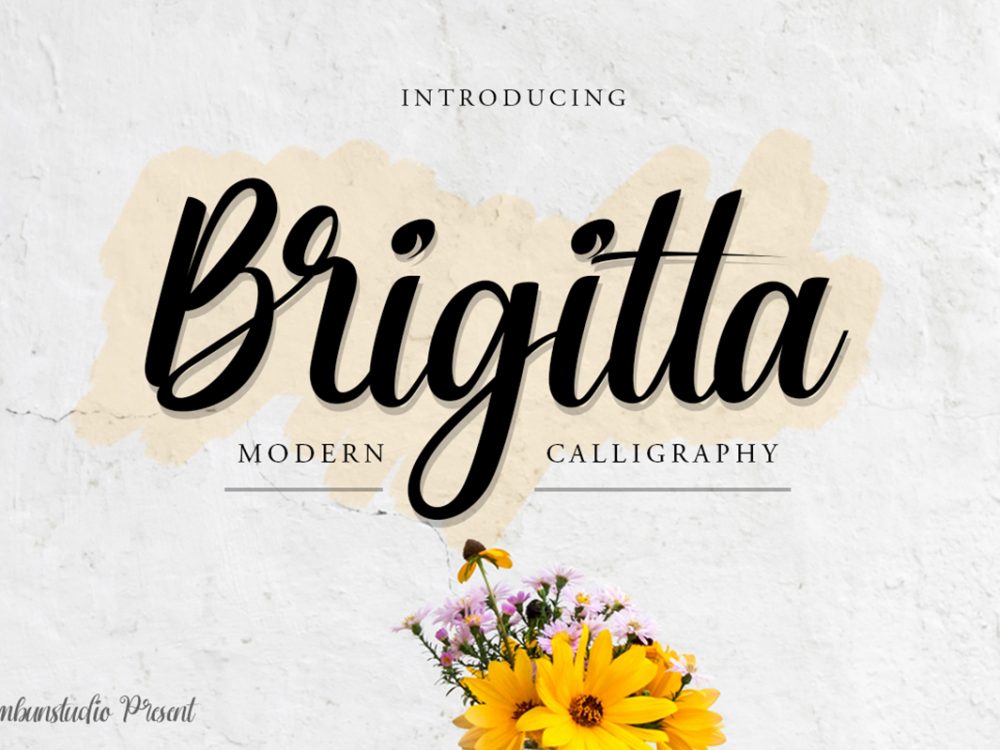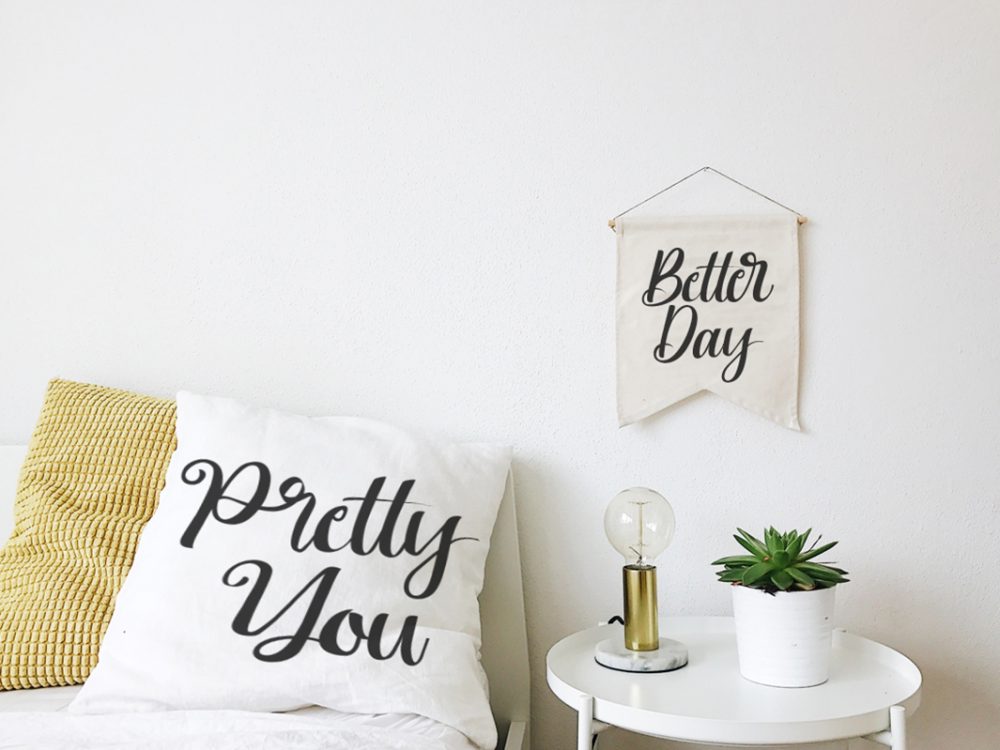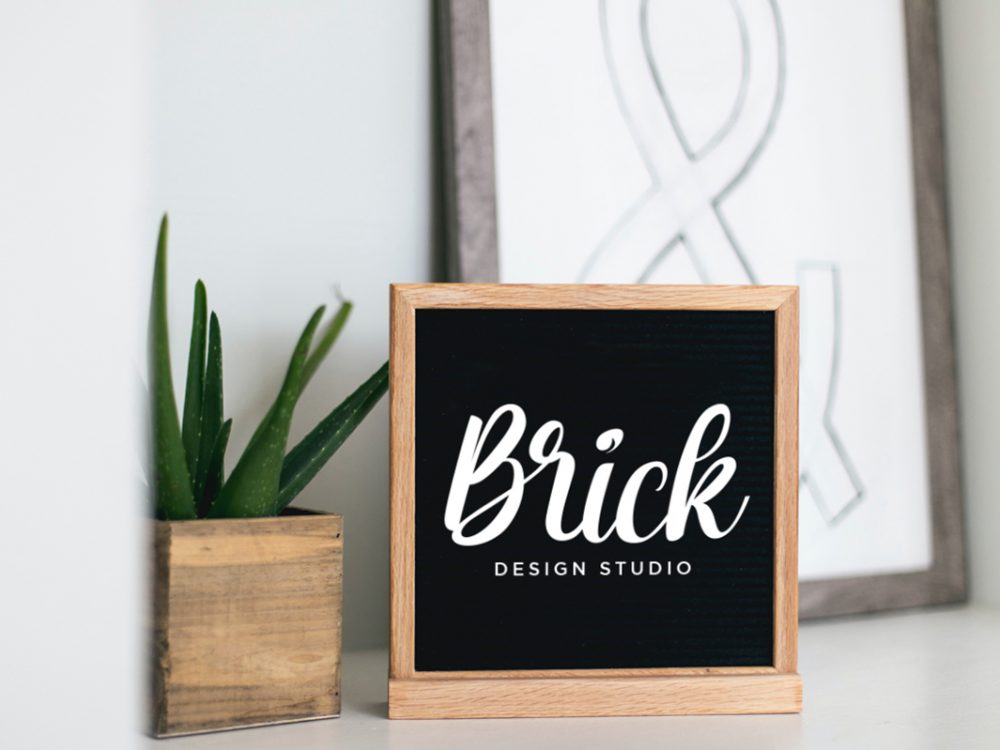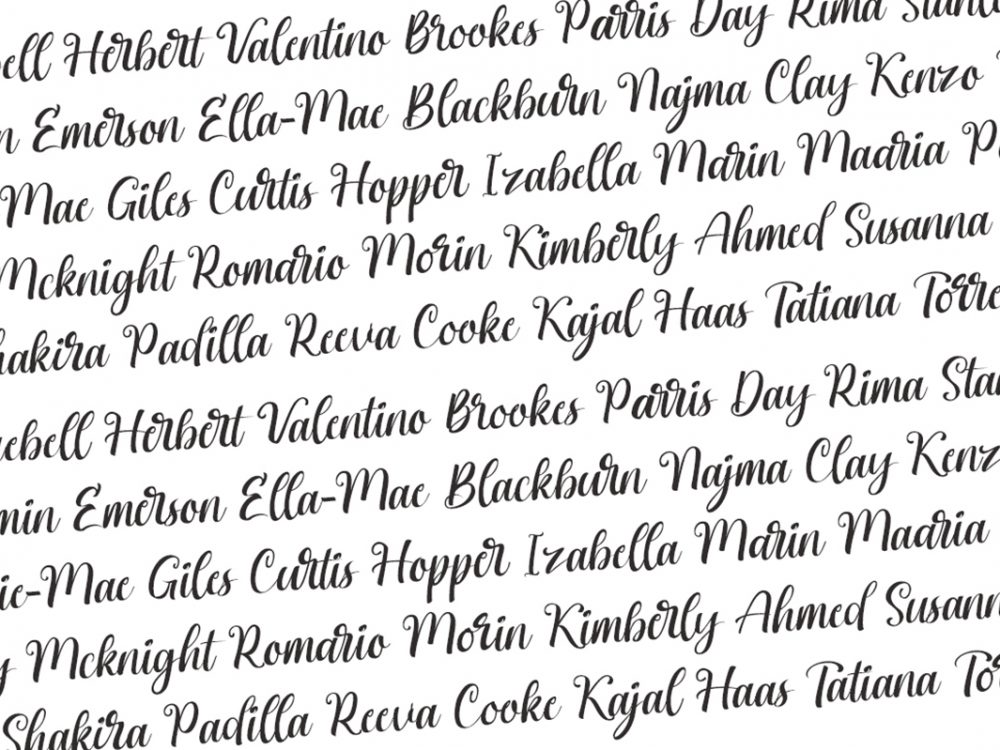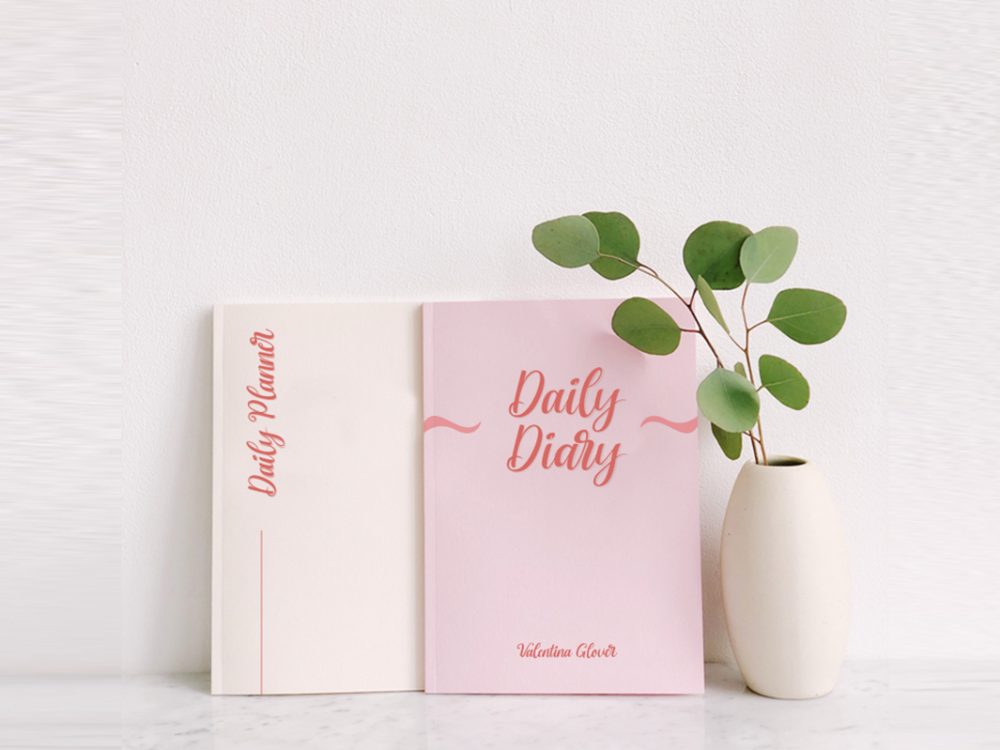
Brigitta Script Free Font
Brigitta Script Free Font is a stylish handwritten typeface that features an elegant calligraphic style. This font will help you create unique design projects and enhance your professional level. Use this font to create memorable posters, wedding invitations, cards, text pillows, branding, flyers, and more. If you like it don’t forget to check out the full version.